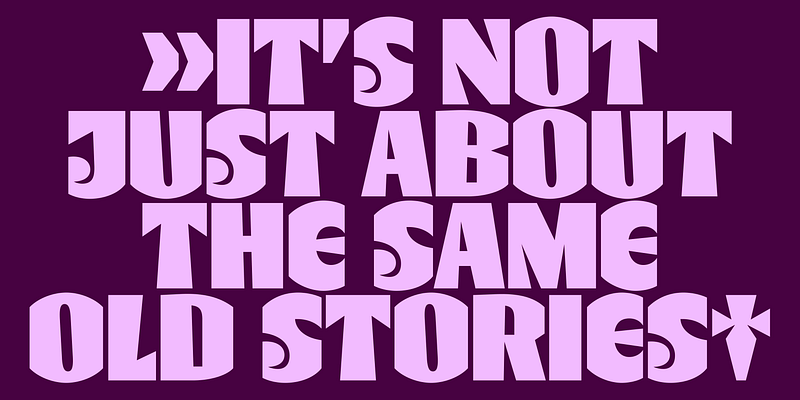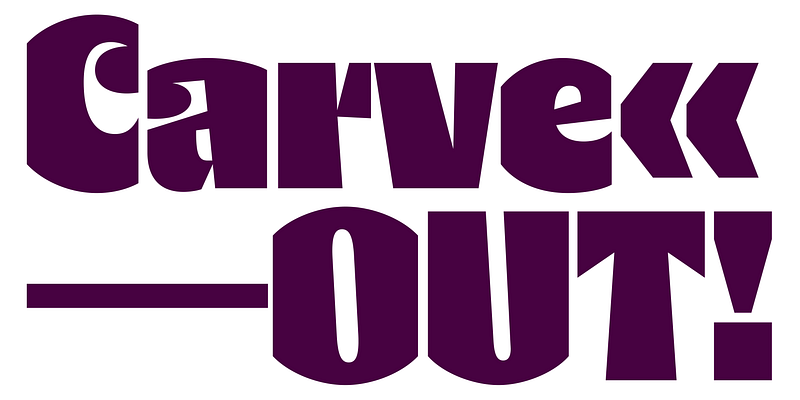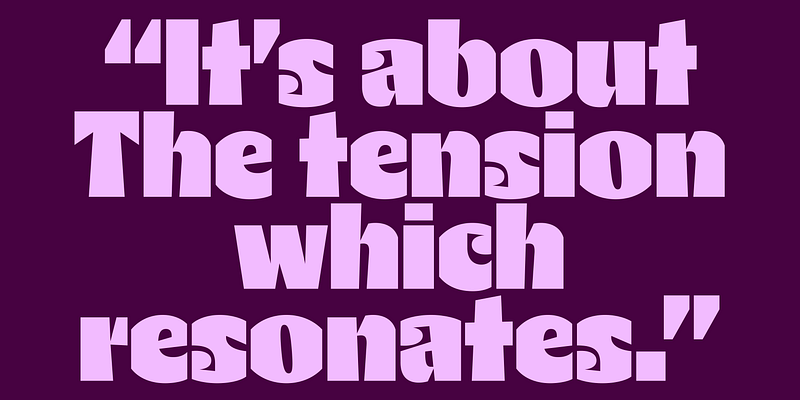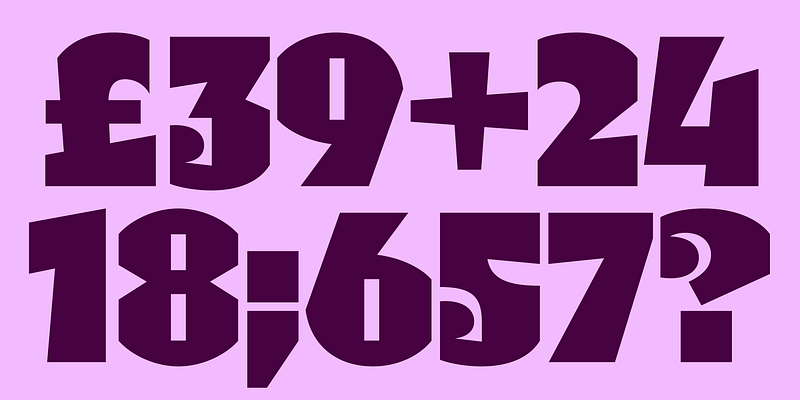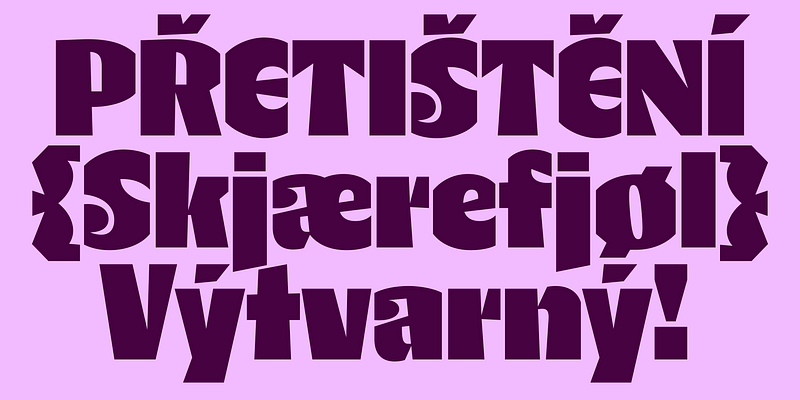
RL Folklor is a distinctive display typeface designed around the dynamic interplay of positive and negative space. This approach results in bold, blocky letterforms with a carved aesthetic. The balance of straight segments, curves, and cuts maintains an energetic character, embodying artisanal simplicity.
Deeply rooted in the idea of memory, RL Folklor features interconnected shapes where negative space creates harmony and tension. Its unique personality is defined by terminals that blend a rare combination of low-contrast humanist elements with echoes of ball terminals, as seen in letters like ‘C’, ‘J’, ‘S’, ‘a’, ‘c’, and ‘s’. Additionally, sharp pinch points strategically align, visually locking characters together for a cohesive and structured appearance. This typeface is a perfect tool for creating strong typographic impressions, excelling in large sizes and densely set display paragraphs.